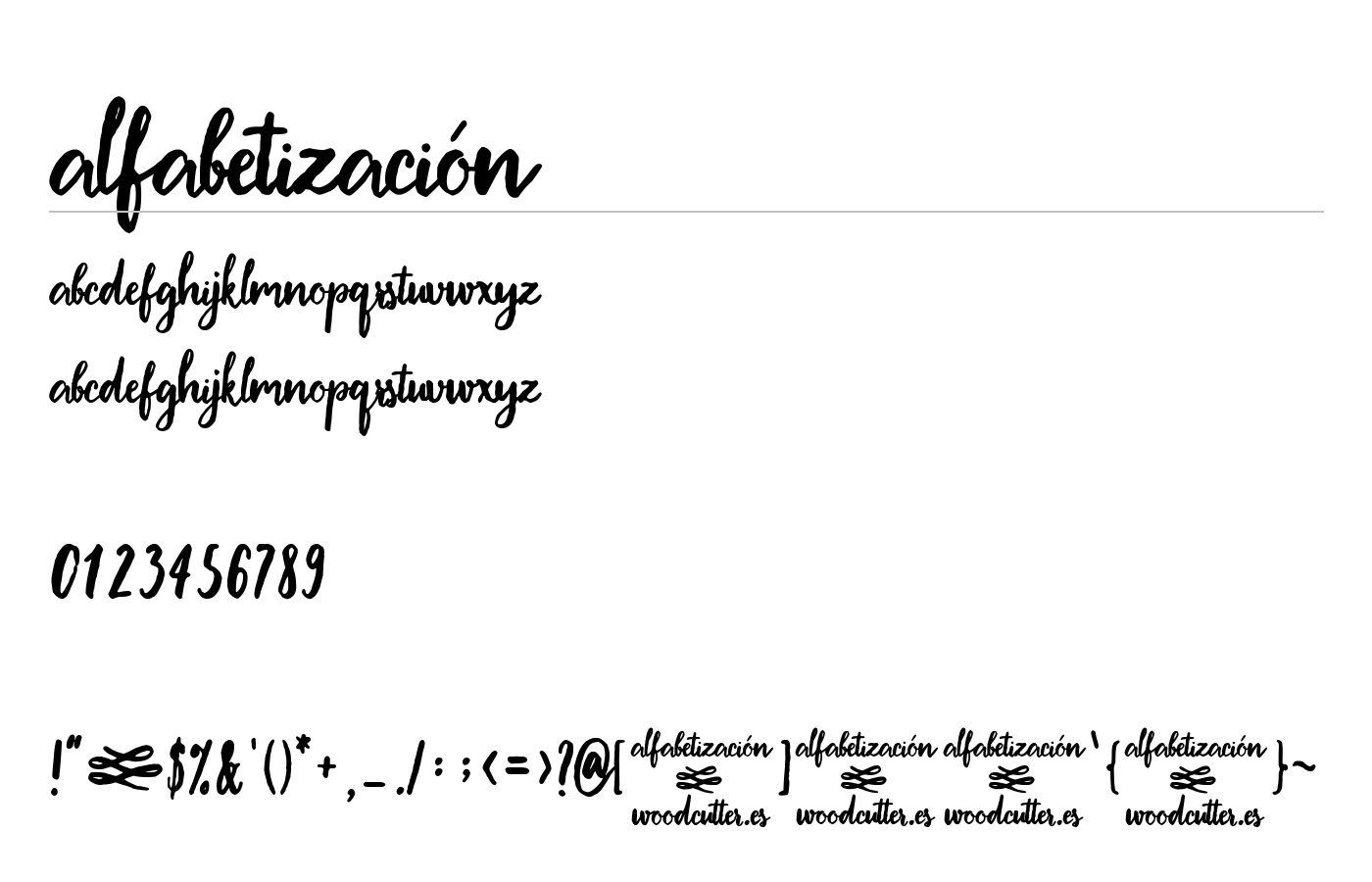
Alfabetización is a lively and expressive script font that features a bold, brush-like style with a natural, handwritten feel. Its tall, slightly condensed letterforms and consistent stroke weight give it a warm, approachable personality, making it ideal for creative and casual branding, invitations, or artistic headlines. This font’s charming fluidity and clear legibility add a friendly, personal touch to projects seeking an informal yet distinctive look.
Alfabetización Font
About Alfabetización Font
| Font family | Alfabetización Font |